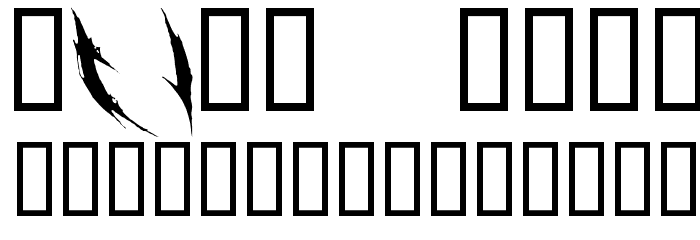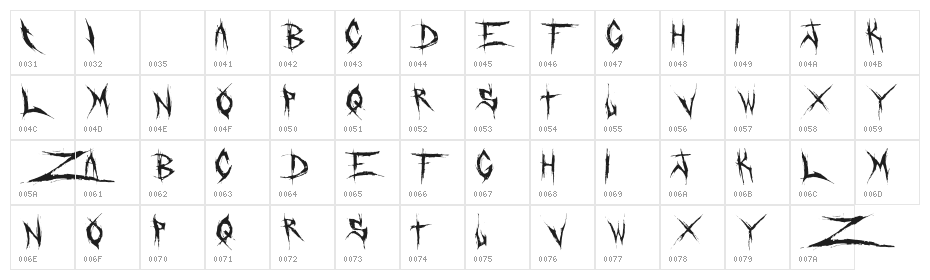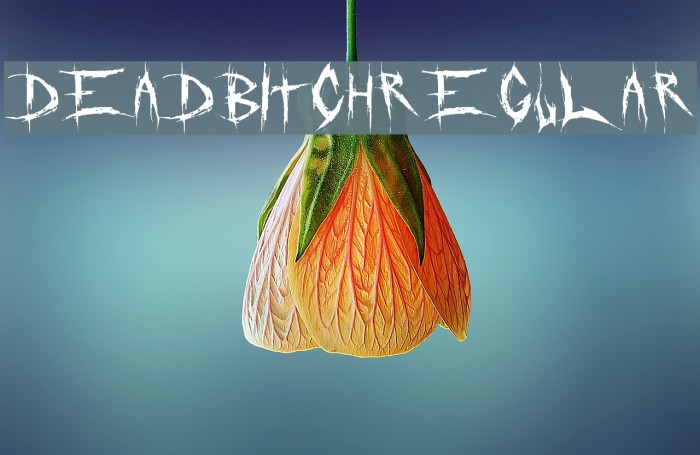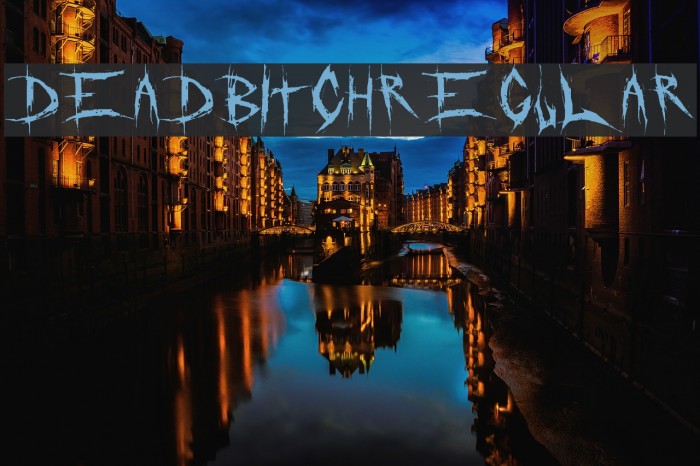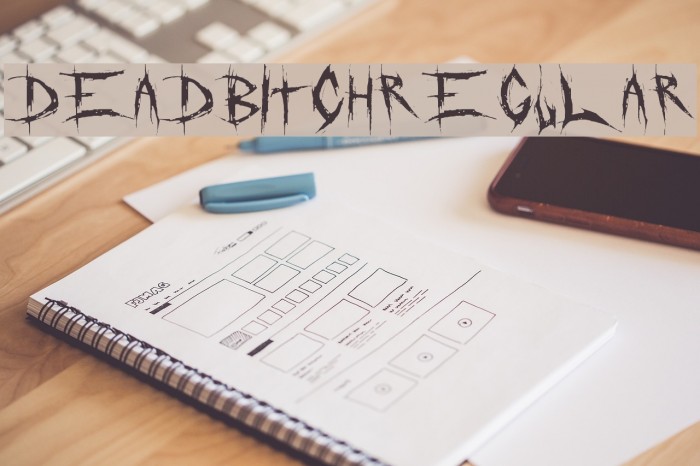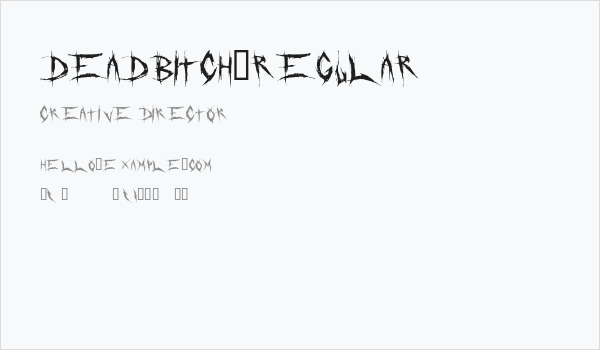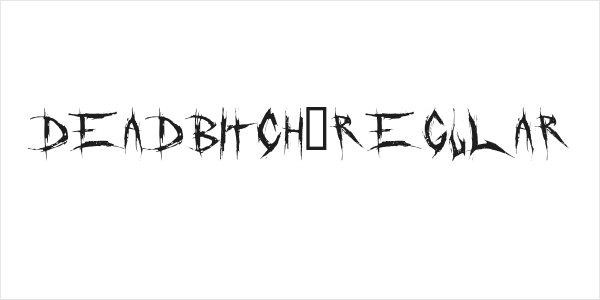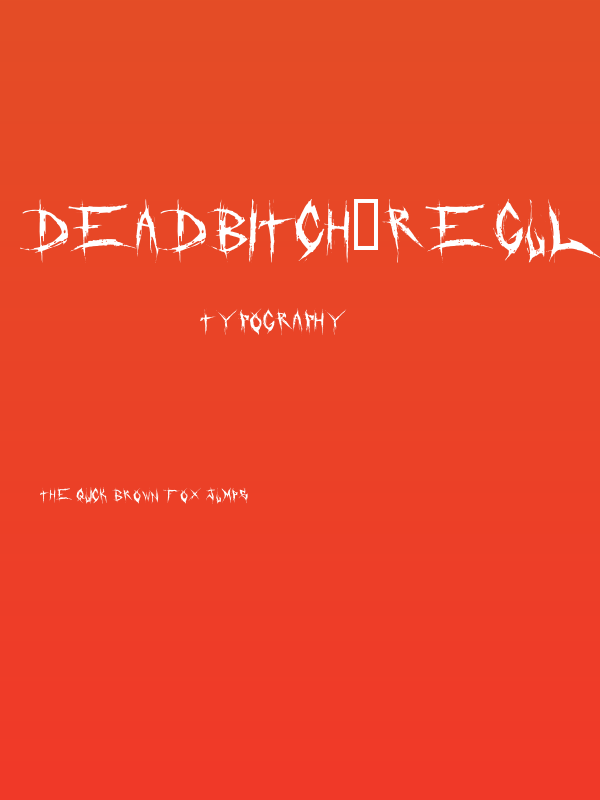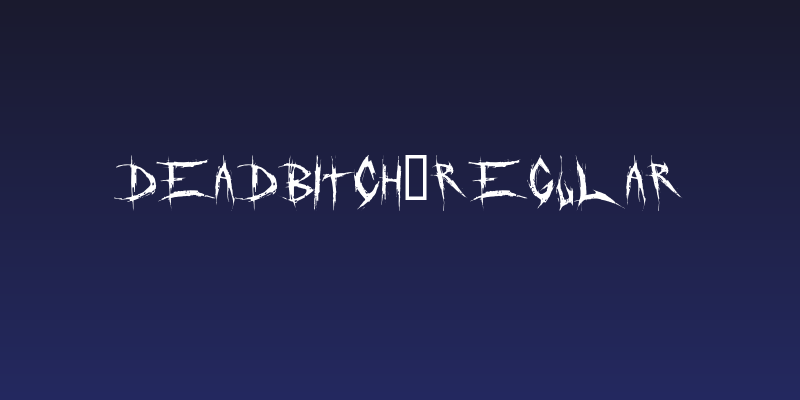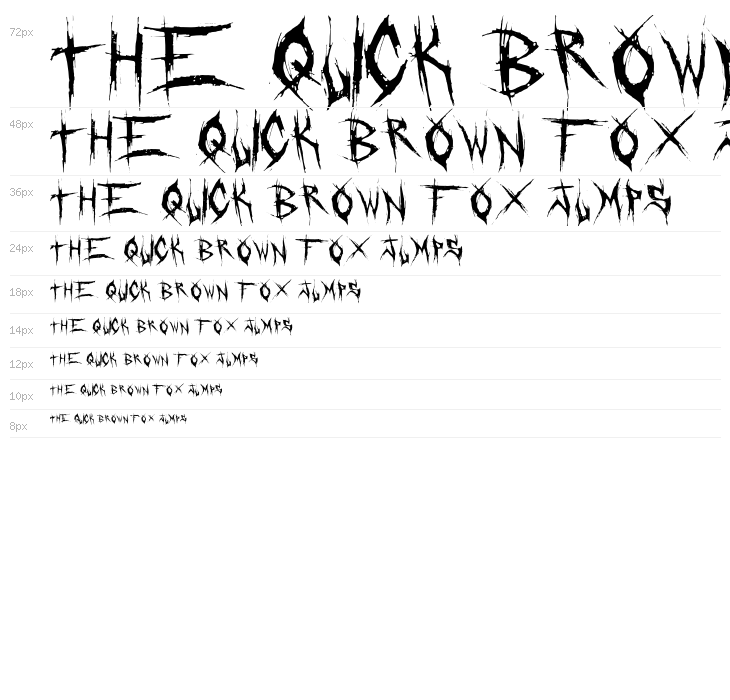
DeadBitch-Regular Font
DeadBitch-Regular Description
This font features a highly distressed and grungy style, characterized by jagged edges and irregular strokes that give it a raw, edgy appearance. The letters appear as if they have been scratched or torn, creating a sense of chaos and intensity. This design is reminiscent of horror or metal band aesthetics, making it ideal for projects that require a bold and rebellious look. The uppercase and lowercase letters maintain a consistent style, with each character exhibiting unique, sharp angles and varying thicknesses. The numbers and special characters follow the same distressed theme, ensuring a cohesive appearance across all text elements.
| Overall Style | Grunge, Edgy, Intense |
| Proposed Projects | Ideal for horror-themed designs, album covers, posters, and edgy branding projects. |